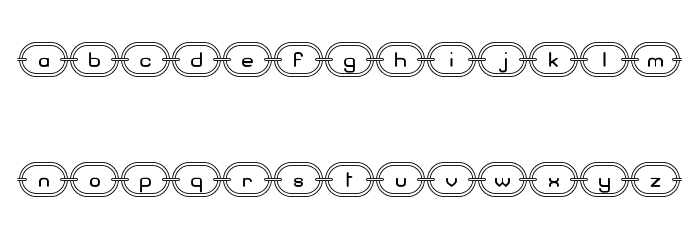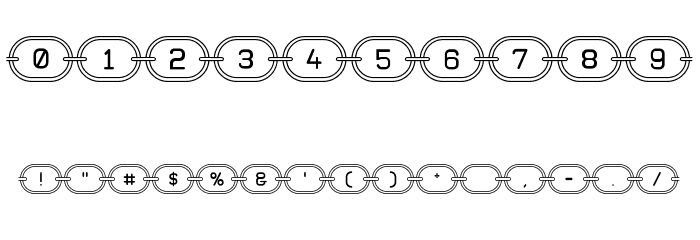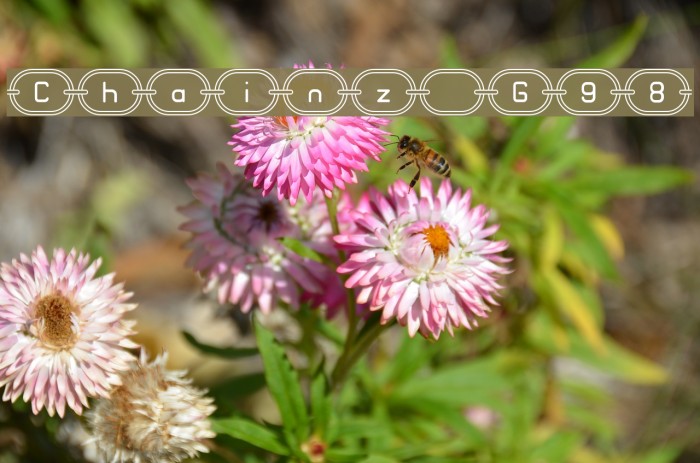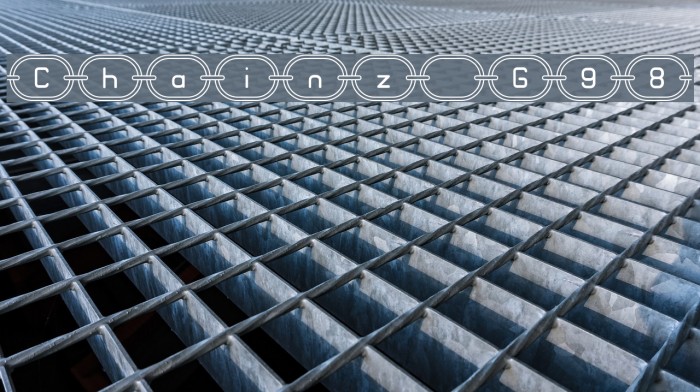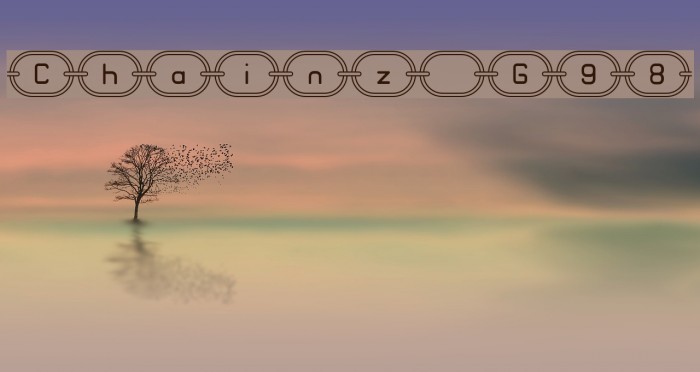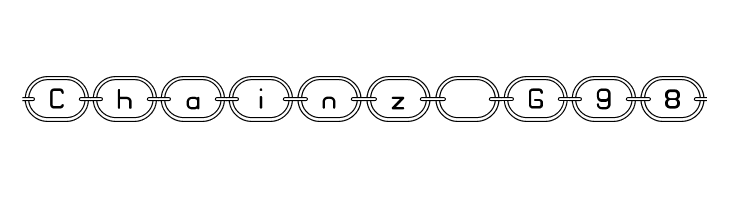
Chainz G98 Font
This unique font features characters encased in chain-like links, creating a bold and industrial aesthetic. Each letter and number is enclosed within a rounded rectangle, connected by horizontal lines that resemble chain links. The design is consistent across uppercase, lowercase, and numerical characters, providing a cohesive look. The characters themselves are sans-serif, with a modern and clean appearance, contrasting with the rugged chain motif. This font is ideal for projects that require a strong, edgy, or mechanical feel, such as branding for industrial products, event posters, or video game titles.
A bold, chain-themed font with sans-serif characters enclosed in linked shapes.
- Proposed Projects: Ideal for industrial branding, event posters, video game titles, and edgy graphic designs.
- Overall Style: Modern, Industrial